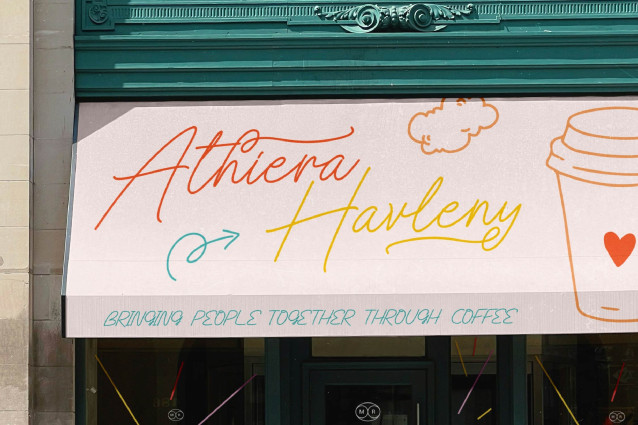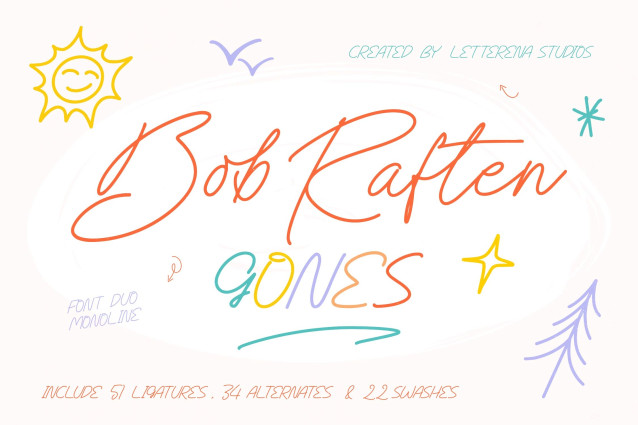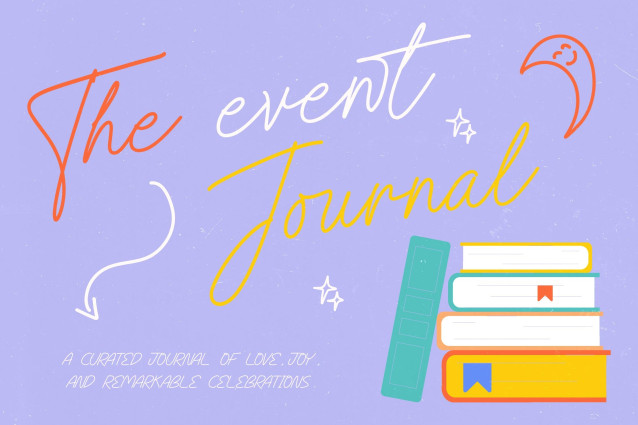
Bob Raften Gones – Font Duo Monoline
Elevate your creative projects with the effortless charm of Bob Raften Gones – Font Duo Monoline. This typeface features a refined monoline weight that captures the essence of authentic handwriting. Its fluid, continuous strokes offer an organic aesthetic that is both playful and sophisticated, providing designers with a versatile toolkit of ligatures and alternates to ensure a custom, hand-crafted feel in every layout.
Experience a global design reach without compromising on style or functionality. With its extensive multilingual support, Bob Raften Gones – Font Duo Monoline adapts seamlessly across global markets, making it incredibly versatile for international projects. By providing a wide range of characters, it ensures that your brand message remains consistent and impactful regardless of the language, catering perfectly to a diverse audience.